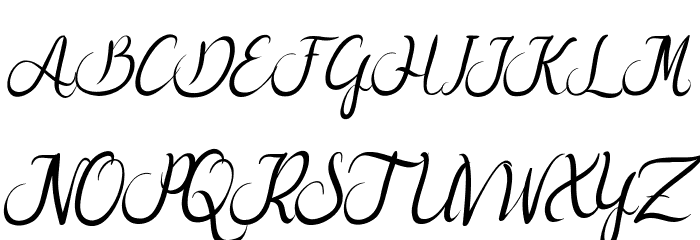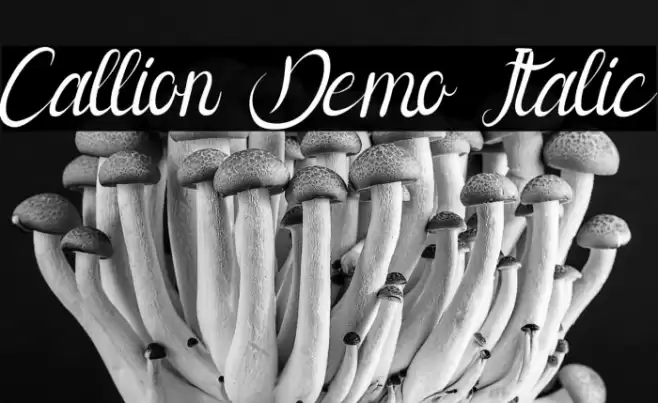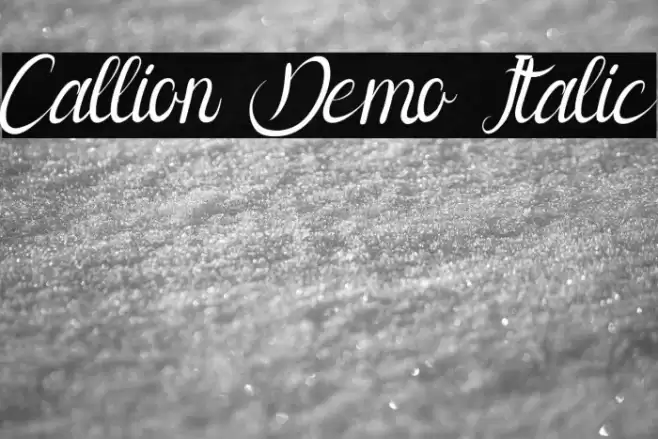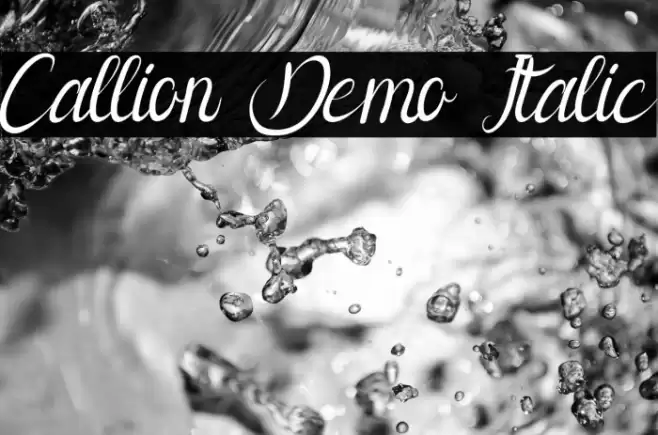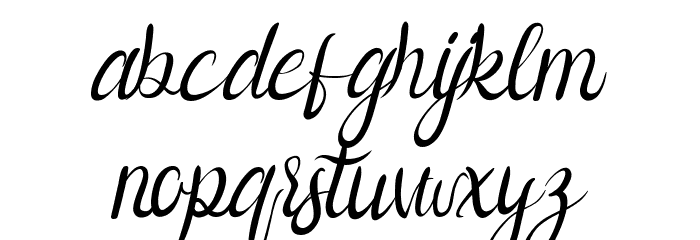
Callion Demo Italic Font
✎ Script
| Catégories | Script |
| Style général | Elegant, Artistic |
| Cas d'utilisation | Invitations, Greeting cards, Artistic projects |
| Projets proposés | Ideal for wedding invitations, greeting cards, branding, and artistic projects. |